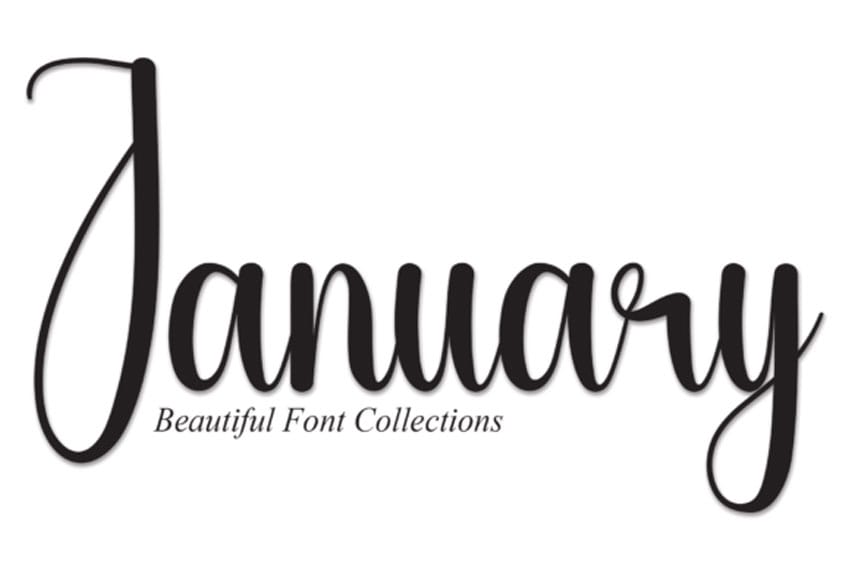
January Beautiful Font is a sweet and friendly handwritten font.
Cute and fun, this font is ideal for writing wedding invitations, cards, or any other design that might need a fun touch!